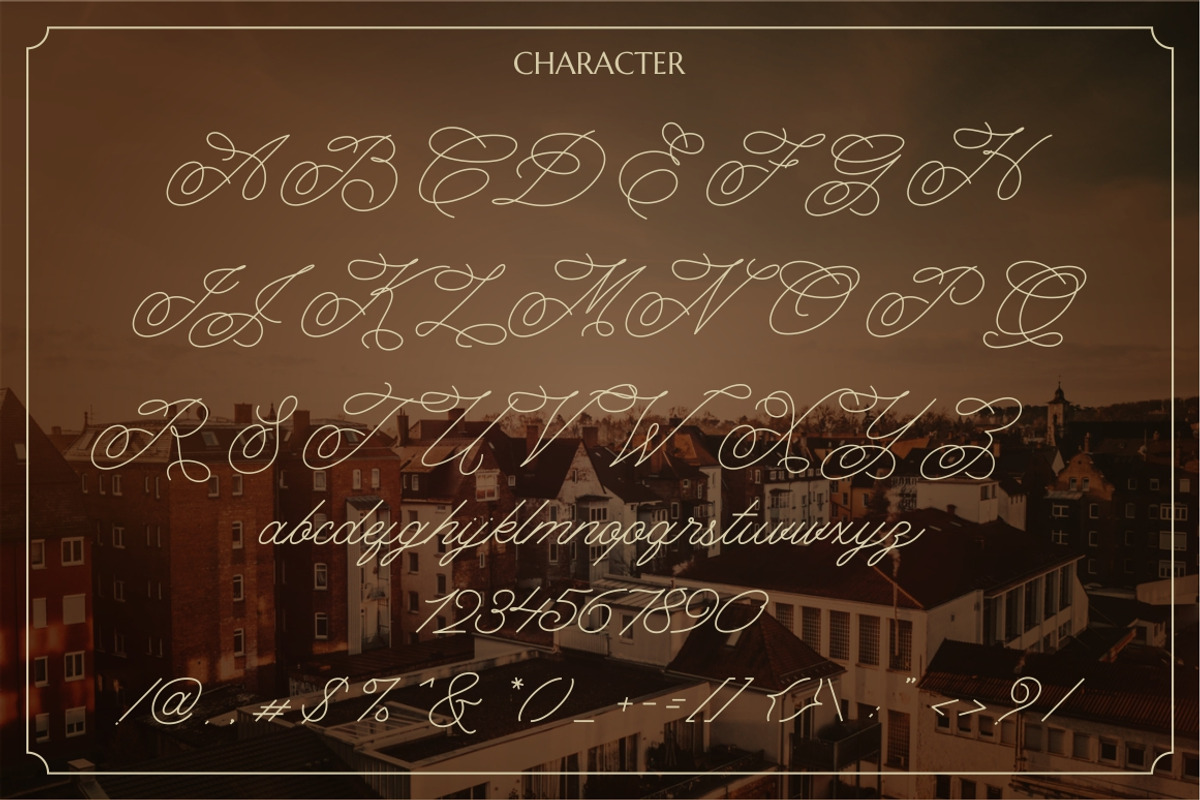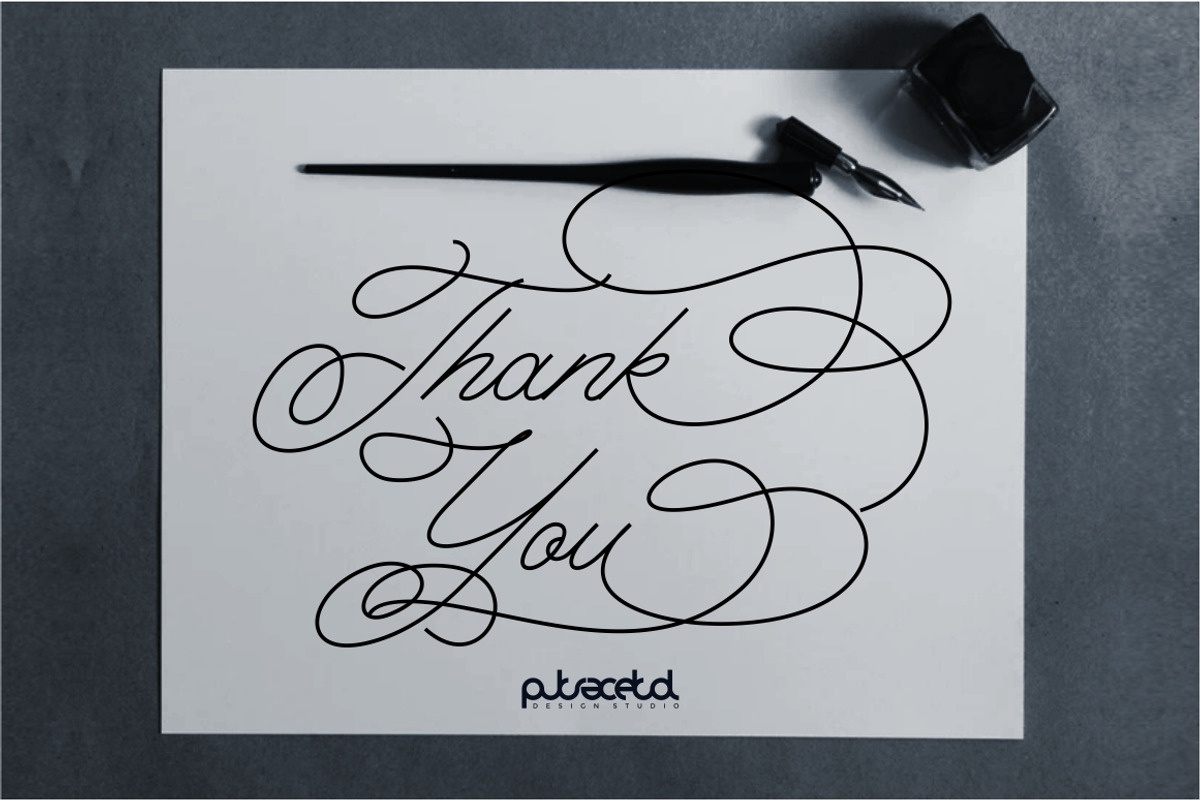
The Ultimate Class Script
Ultimate Class
Introducing Ultimate Class. A elegant, classy and stylish script typeface. This font also have plenty of beautiful swashes with swirls, 13 - 17 alternate character for lowercase letter.
Ultimate Class perfect for signature,quote, branding, wedding invite and card, elegant logo, poster, packaging, stationery, website, and many more.
Come with open type feature with a lot of alternates, it's help you to make great lettering.
- Number, Punctuation And Symbols